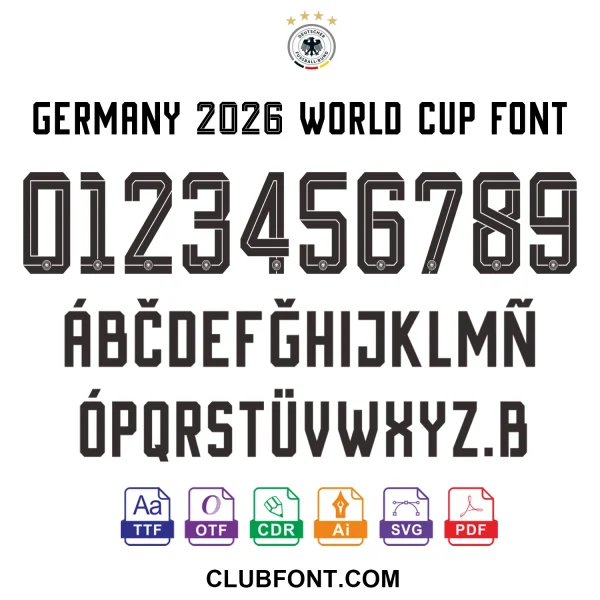
The Germany 2026 World Cup font brings the electrifying spirit of international football to your fingertips. Officially inspired by the typography seen in global football tournaments, this comprehensive digital pack is essential for designers, sports marketers, and passionate fans looking to create stunning merchandise. Whether you’re crafting custom jerseys or promotional materials, this font ensures your projects capture the official look and feel.
Versatile Applications for Every Fan